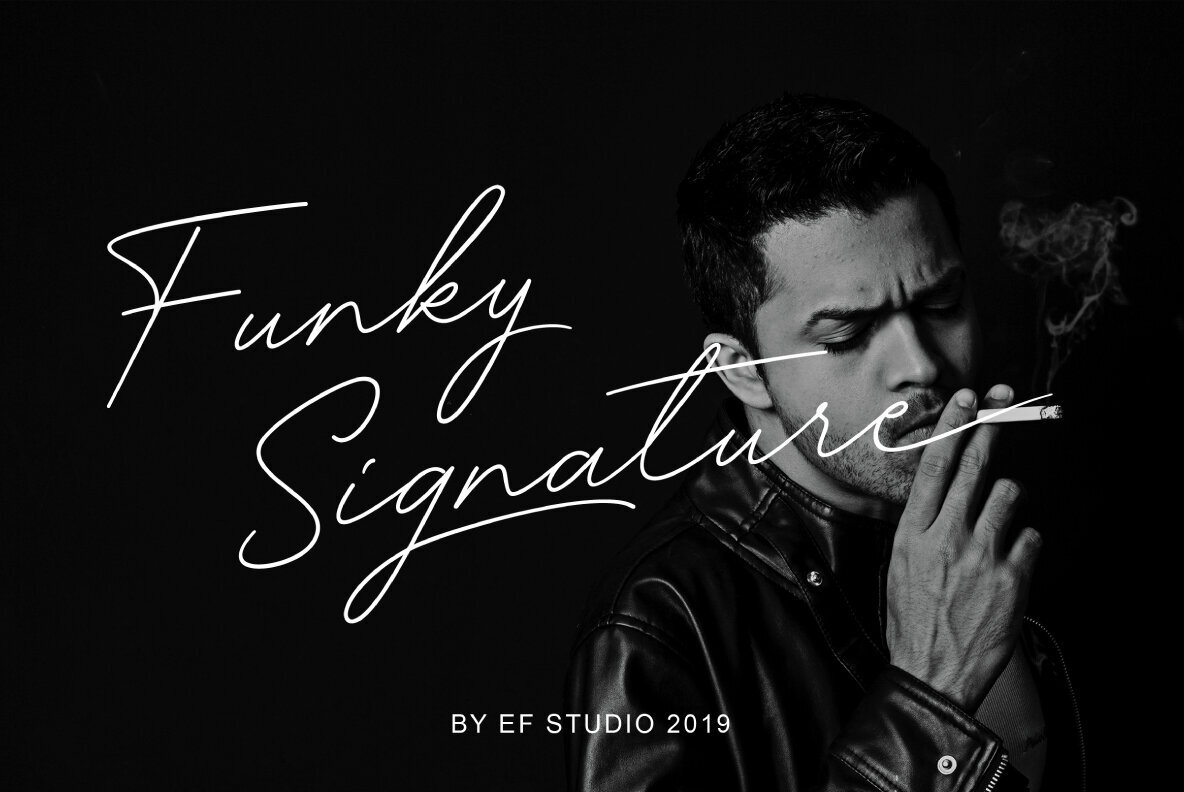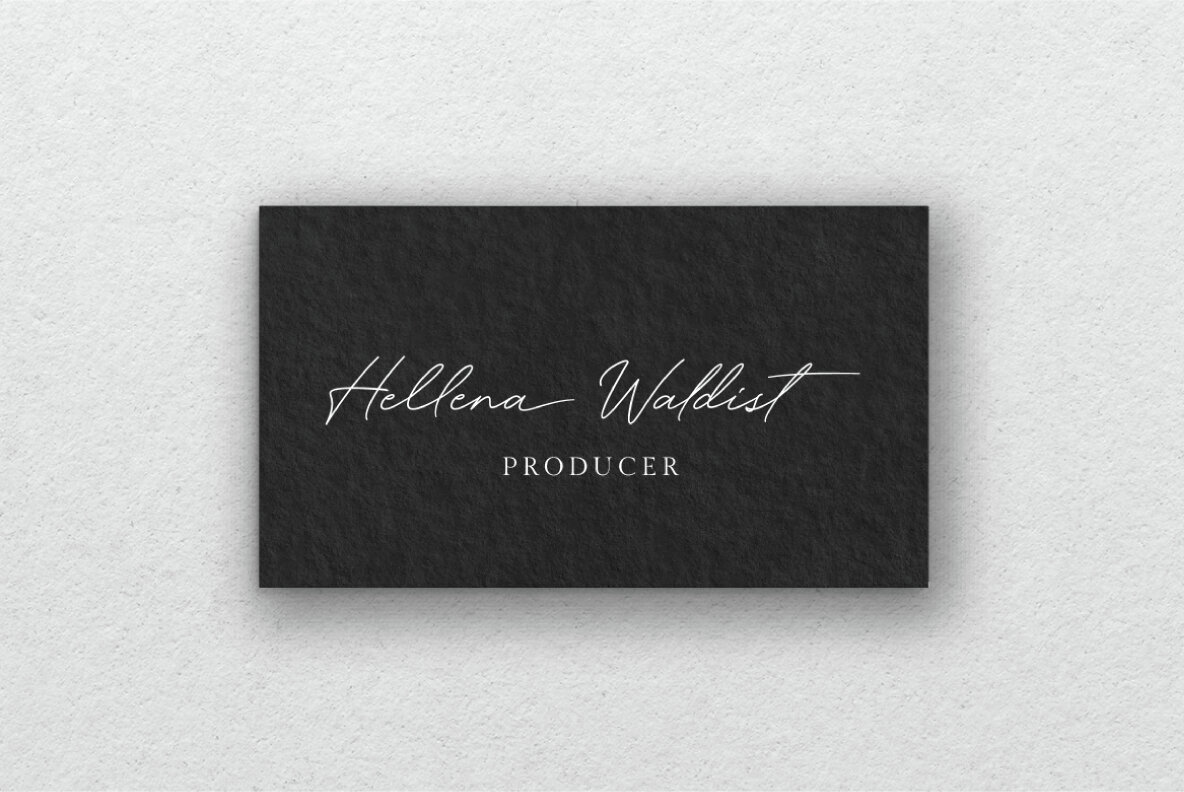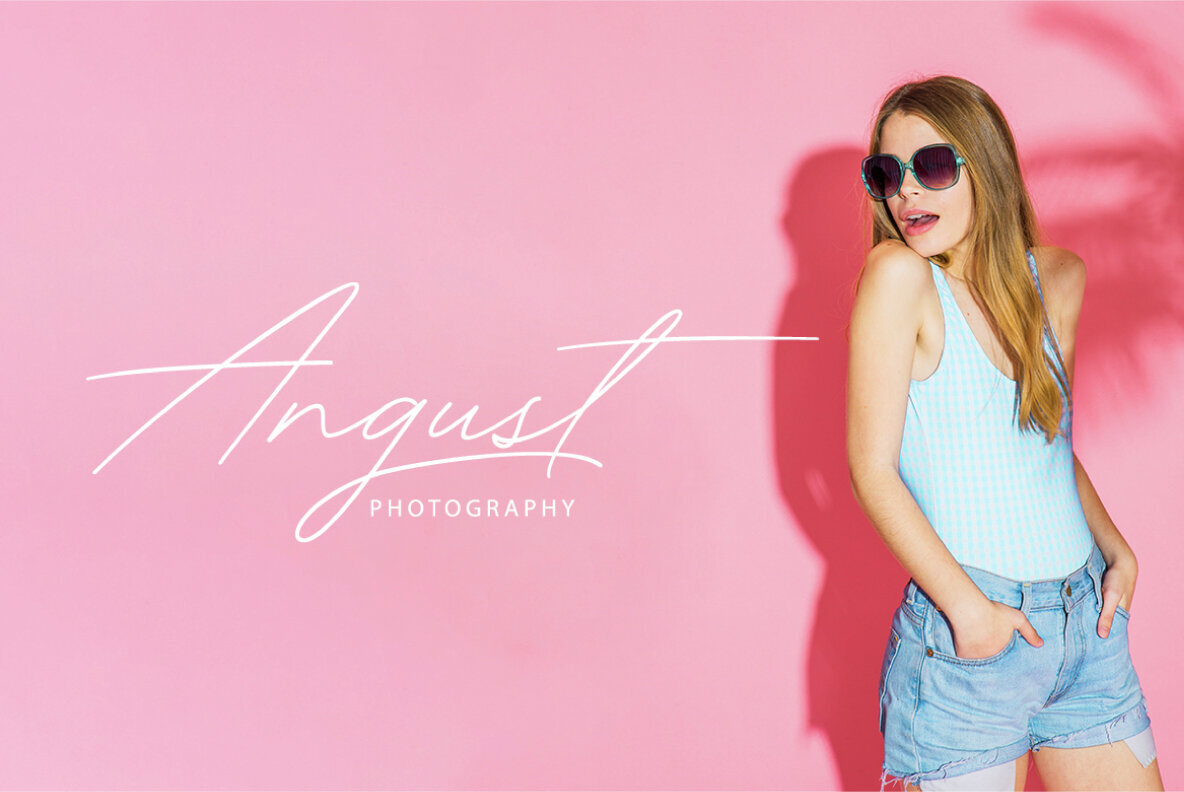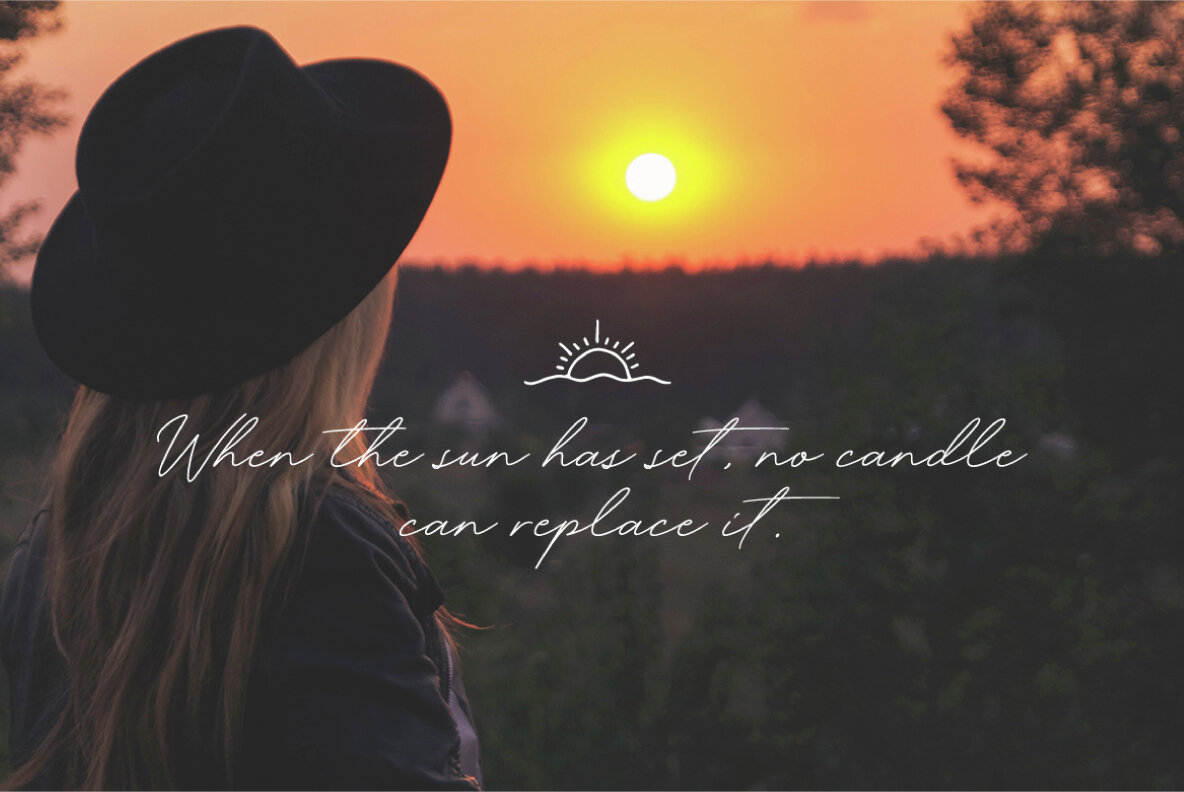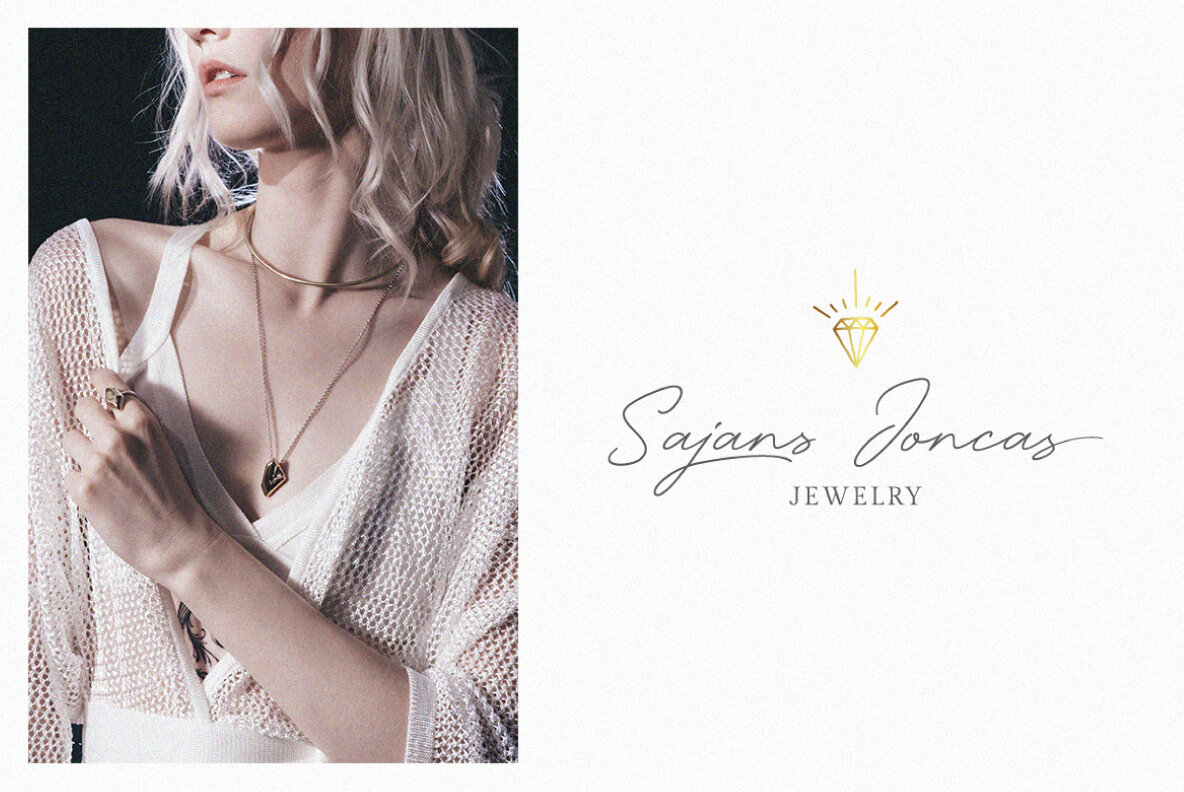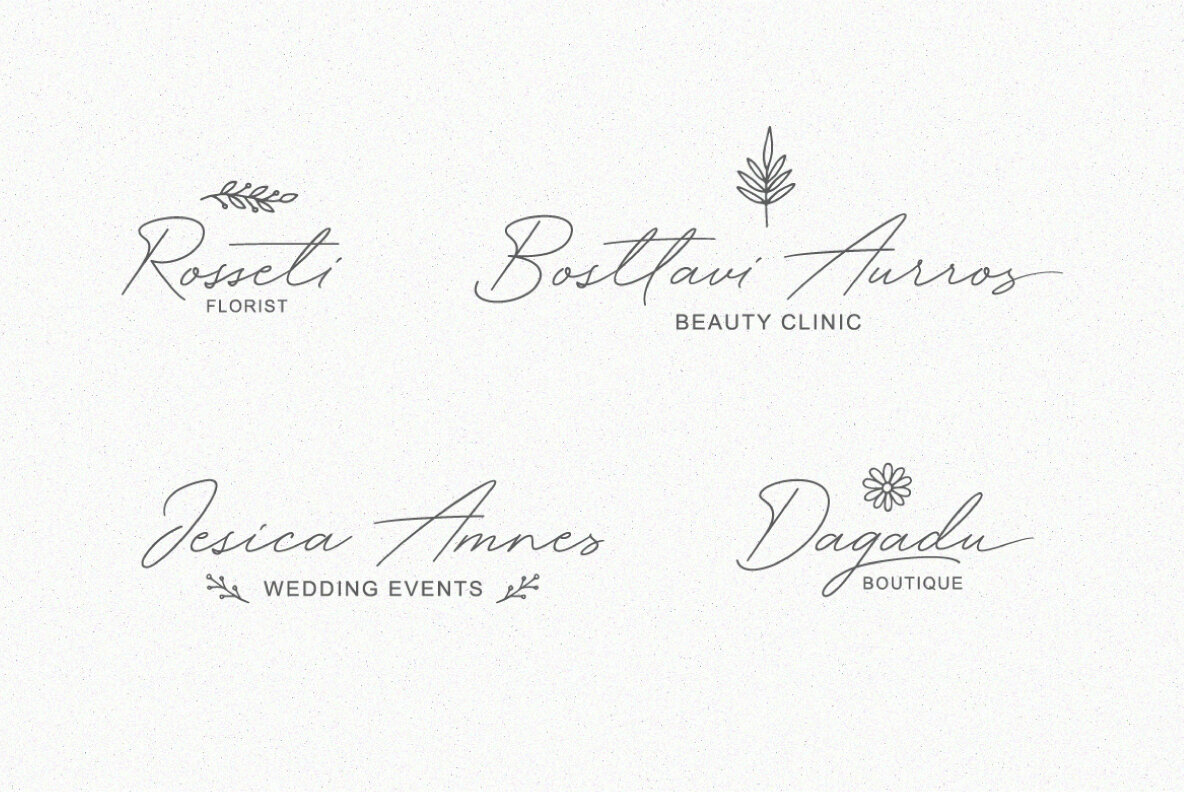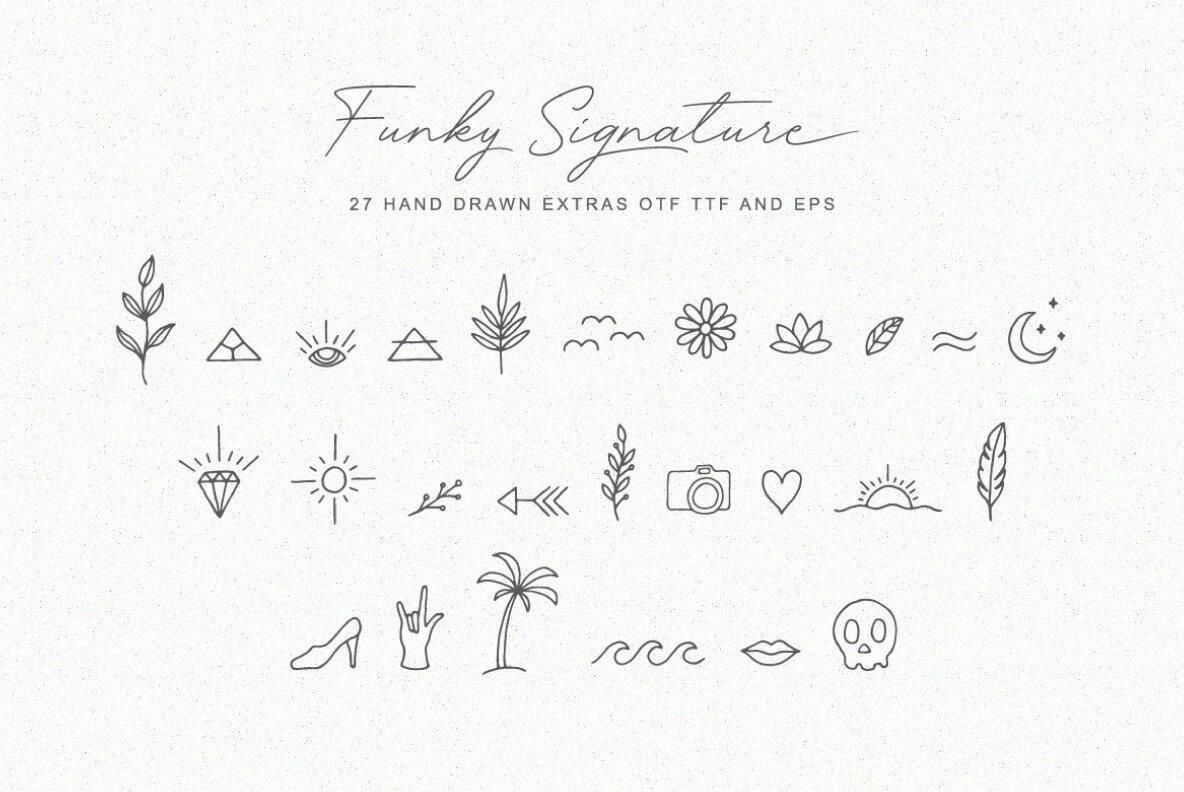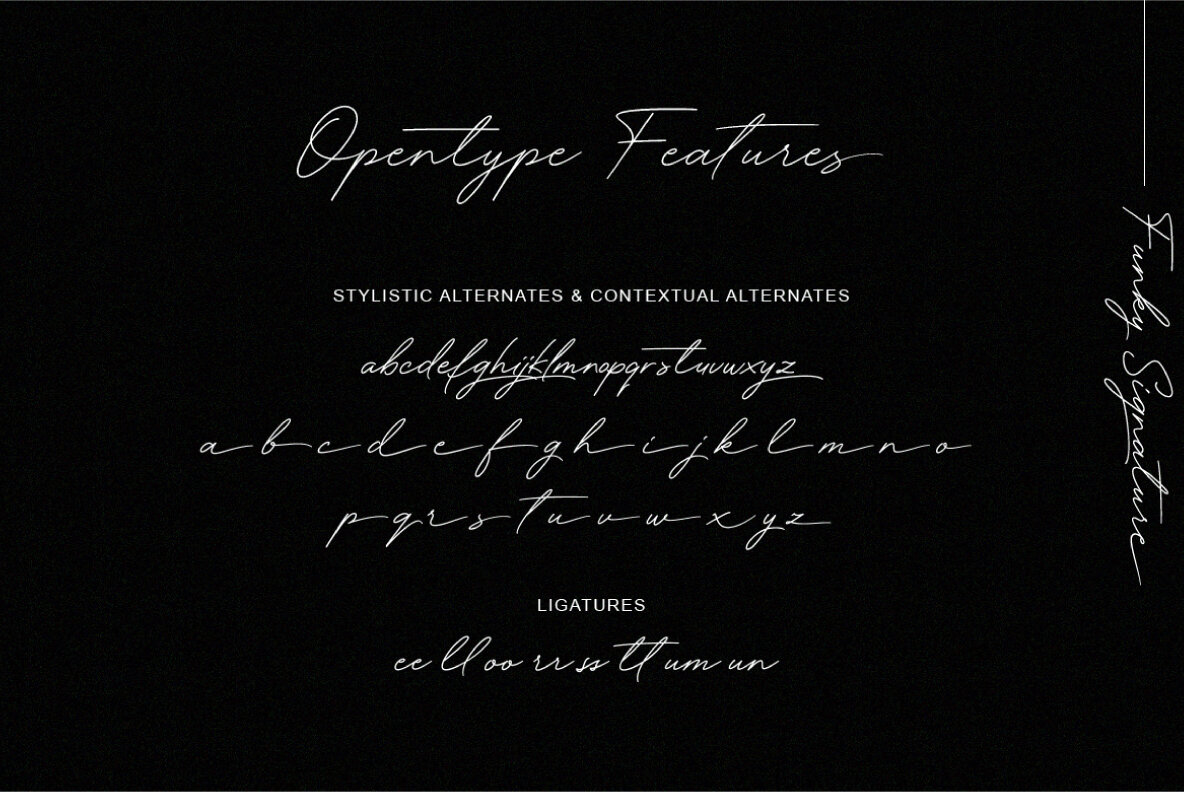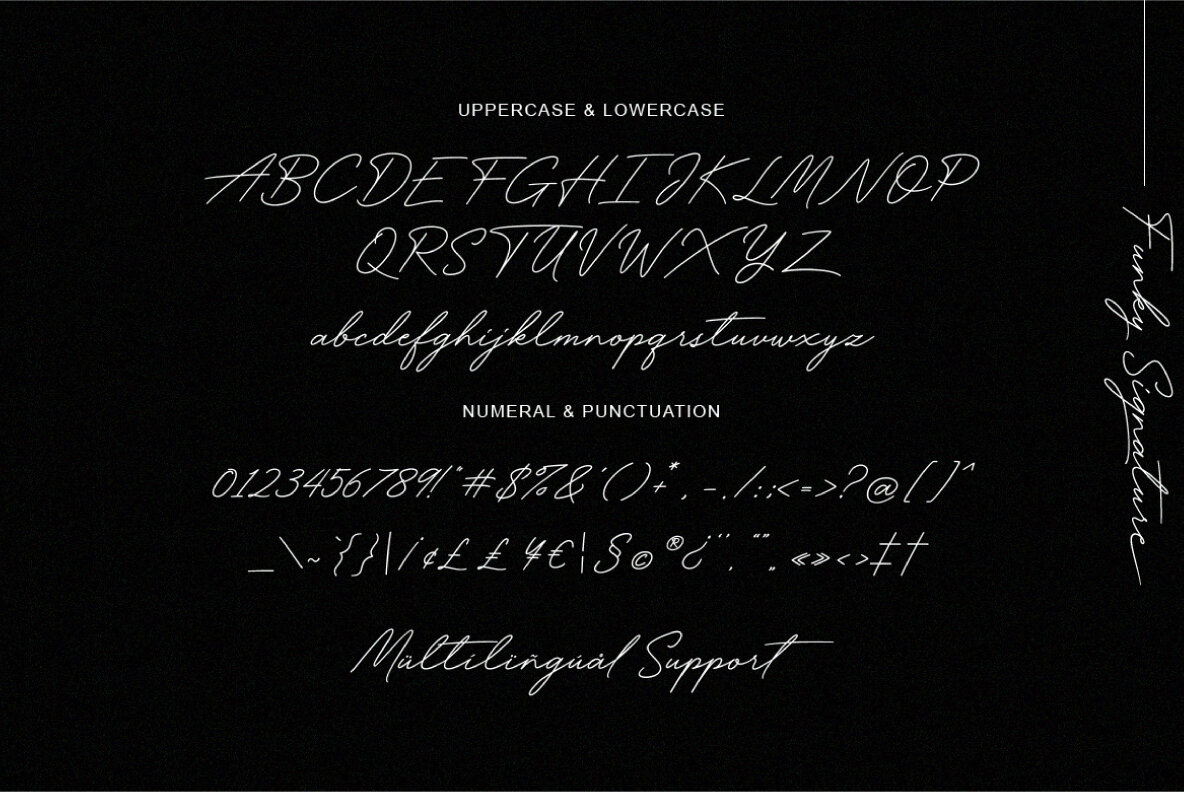
Funky Signature Font
Funky Signature is a bold, handwritten script that seamlessly combines sleek elegance with a hint of rebellious flair. Its long, flowing strokes emulate the authentic look of real ink, making it a confident and unapologetic choice for any design. This stylish font captures attention with its unique charisma, perfect for those looking to make a bold statement. With its standout style and unmistakable energy, Funky Signature leaves an indelible impression, ensuring your projects not only speak but roar with creativity.Funky Signature Handwritten Script